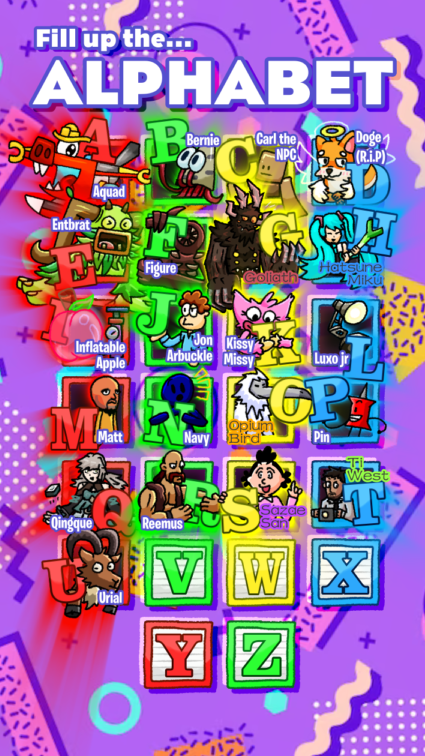
• Each character varies towards different letter, and the trait (of what the character they stand for) will be given to them if capitalized.
e.g. the letter "H" will grow ponytails as it is a trait from Hatsune-Miku
A group of people are all in a race on which the 26 characters must be filled up in 26 slots
Here are what they chosed for:
A is for Aquad (Mixels)
B is for Bernie (Zig and Sharko)
C is for Carl the NPC (NPCs are becoming Smart!)
D is for Doge (Memes)
E is for Entbrat (My Singing Monsters)
F is for Figure (Doors)
G is for Goliath (Devil May Cry 5) *
H is for Hatsune Miku (Vocaloid) *
I is for Inflatable apple
J is for Jon Arbuckle (Garfield)
K is for Kissy Missy (Poppy Playtime)
L is for Luxo JR (Pixar)
M is for Matt (Wii)
N is for Navy (Algicosathalon)
O is for Opium Bird (A.I) *
P is for Pin (Battle for Dream Island)
Q is for Qingque (Honkai Star Rail)
R is for Reemus (Ballards of Reemus)
S is for Sazae San (Sazae-San) *
T is for Ti West *
U is for Urial
More to come! (V-Z)
KEY:
*=These letters are found in the GHOST Challenge on which the audience must guess the character that start of a certain character
For those of you who do want to know what each of those characters would look like based on the traits, then here they are!
W could be Wario
or for phoenix Wright